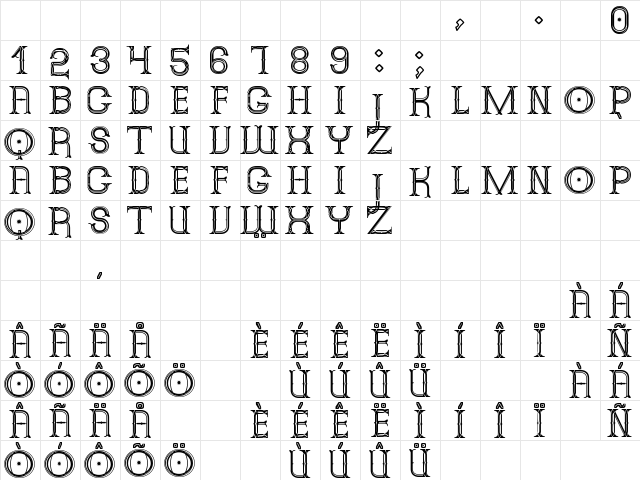
Alphin Merytous St Regular
Design Context for Alphin Merytous St Typeface
Alphin Merytous St is a composed and adaptable typeface that performs quietly and consistently across a wide range of design contexts.